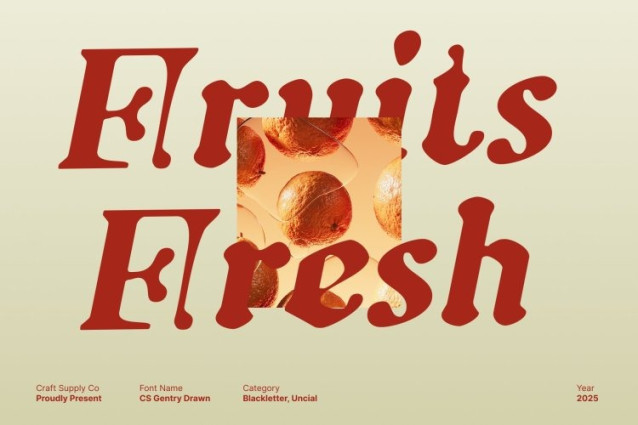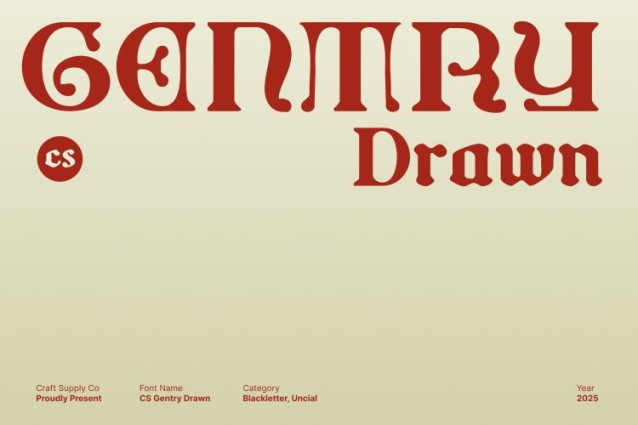
CS Gentry Drawn Font
CS Gentry Drawn Font – This is a decorative Blackletter font designed to command attention with its bold, beauty strokes. Inspired by historic calligraphy and Gothic letterforms, it carries an intense visual rhythm that evokes mystery, elegance, and timeless sophistication.
Hand Drawn Texture for Authentic Artistic Expression
The distinctive drawn texture adds a handcrafted quality to the font, giving it a natural, organic feel. This handmade effect enriches the Blackletter structure with depth and personality like ink brushed onto aged parchment or carved into old manuscripts. The result is a font that feels alive, expressive, and full of artistic nuance.
Classic Heritage with a Unique Modern Identity
While rooted in classic Blackletter tradition, this font brings a fresh, distinctive twist through its textured strokes and modern compositional balance. It bridges historical charm with contemporary personality, making it suitable for creative projects that seek to stand out while honoring tradition.
Perfect for Book Covers, Posters, Branding, and More
Whether you’re designing atmospheric book covers, bold posters, expressive branding, or themed visual identities, this font delivers a classic yet unmistakably unique aesthetic. Its dramatic style and handcrafted texture allow you to create visuals that feel powerful, immersive, and unforgettable ideal for projects that blend tradition with artistic flair.